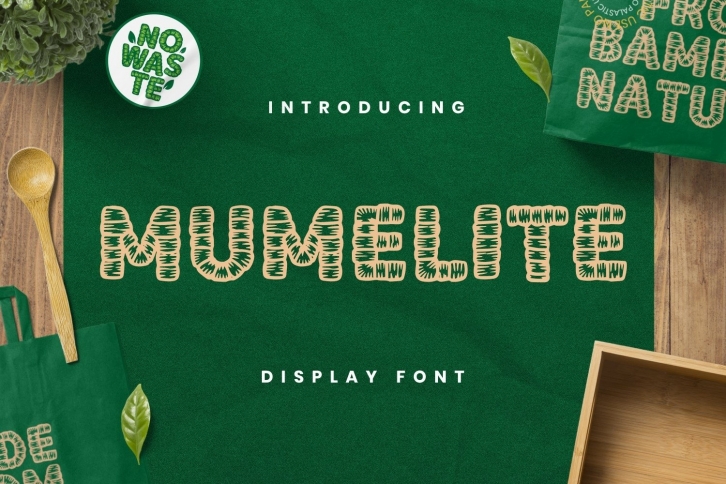
MUMELITE is a beautiful font that was designed by Ovoz shop. It's a great choice for designers and creatives who need such a font. It was released on October 27, 2021 and the file size is 8.24 MB. MUMELITE may give a more youthful, expressive and casual look to your project. It is a very beautiful, refined, elegant, and high-quality font.